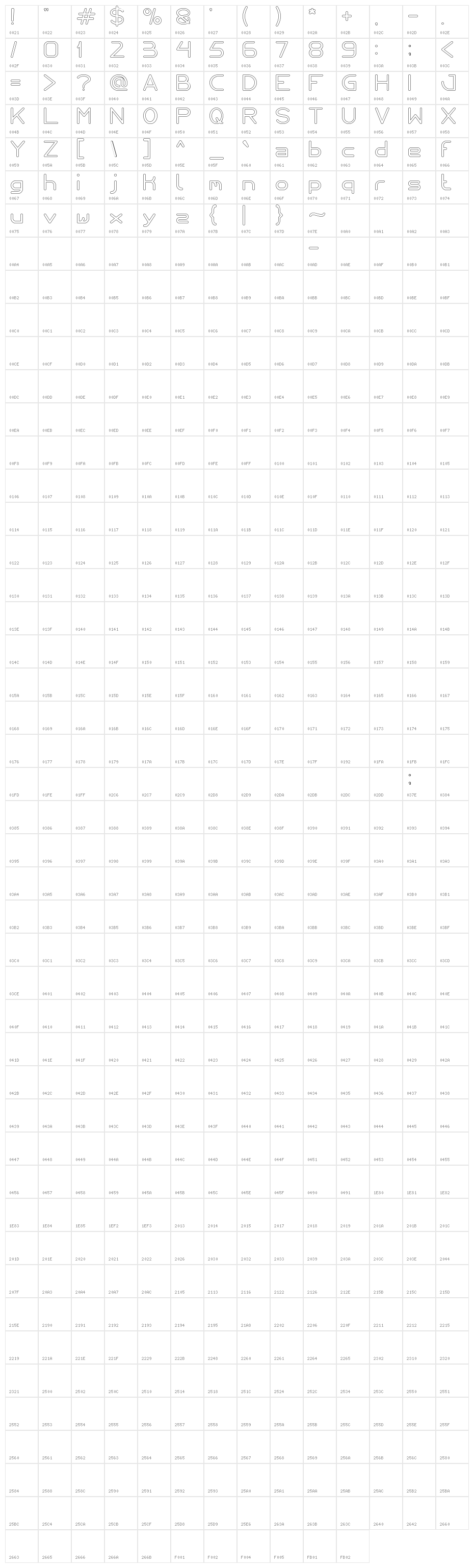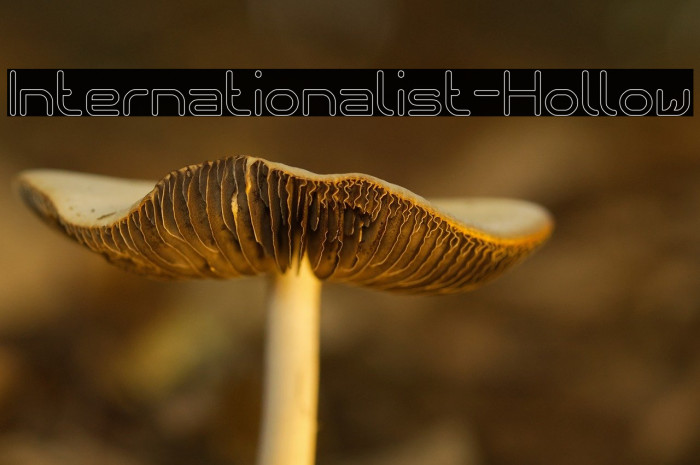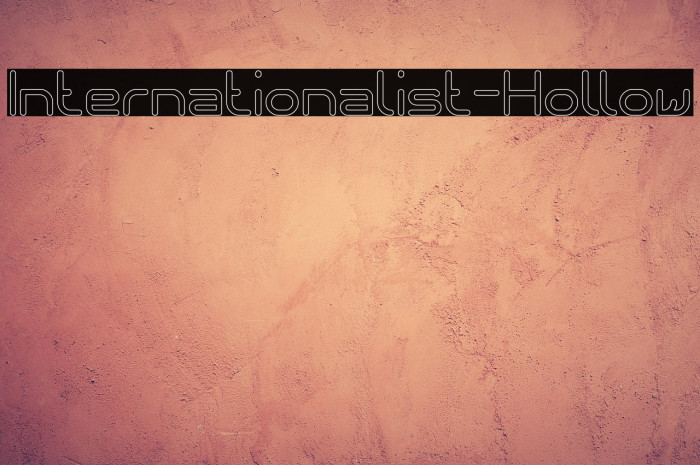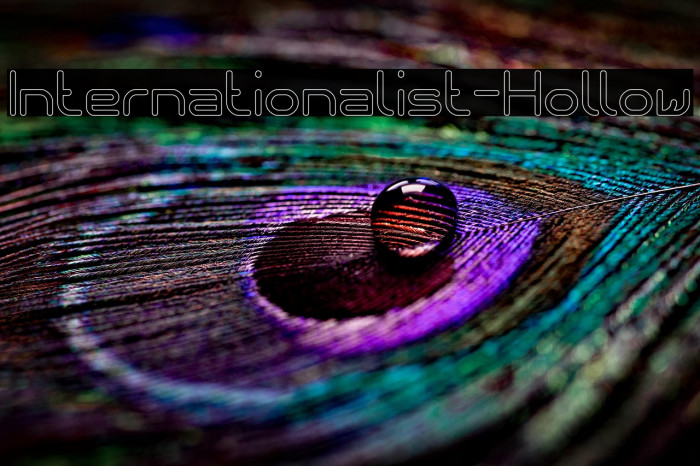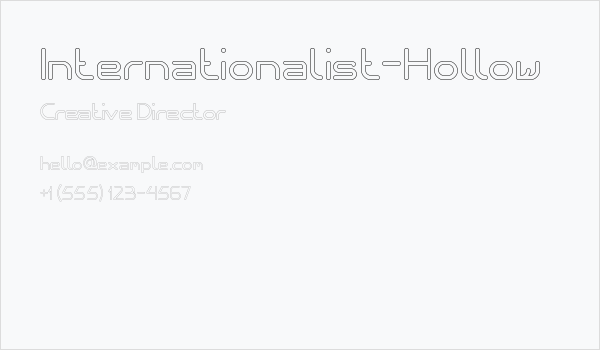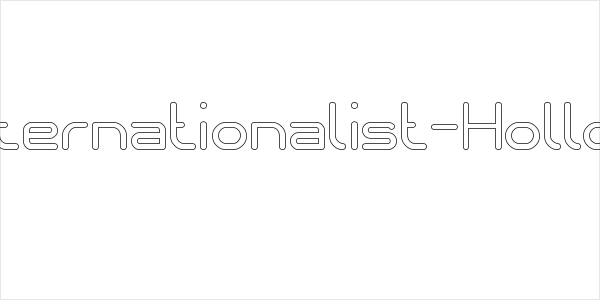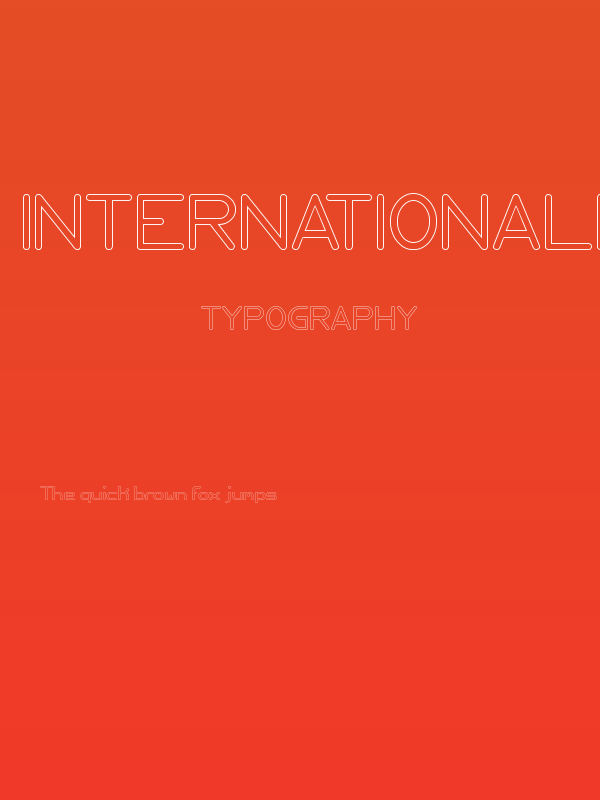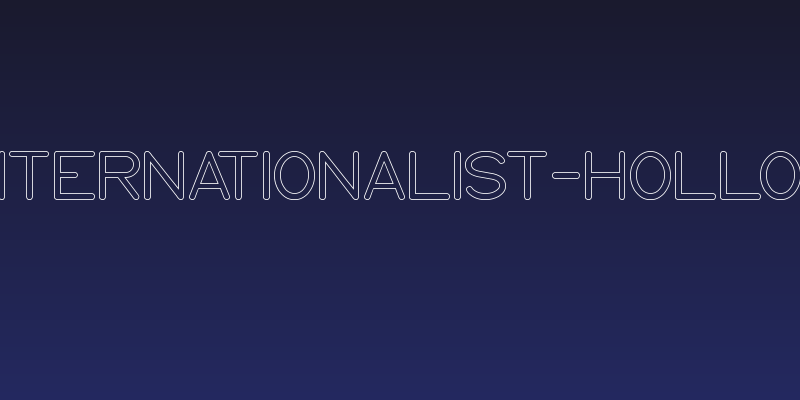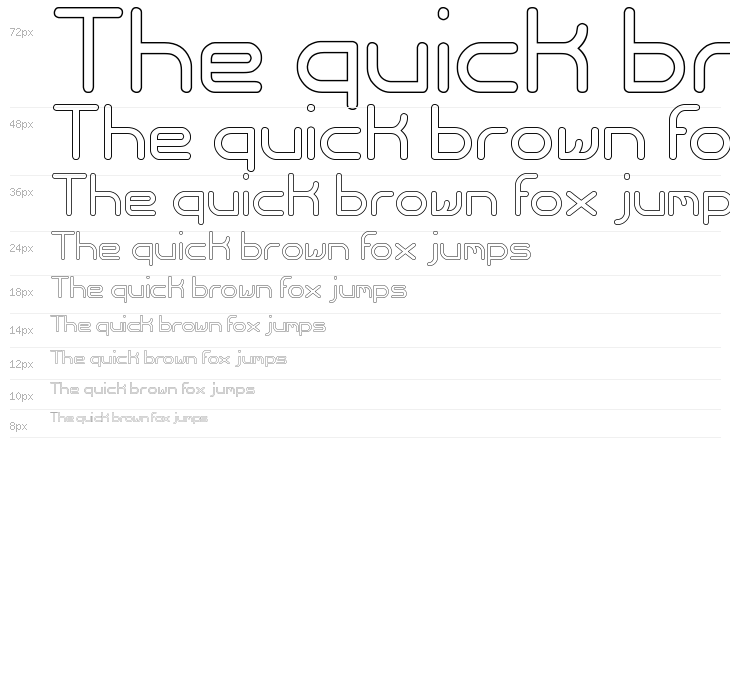
Internationalist-Hollow Font
Internationalist-Hollow Description
This font features a hollow, outlined design that gives it a modern and futuristic appearance. The characters are evenly spaced, with a consistent line thickness that creates a clean and minimalist look. The uppercase and lowercase letters maintain a uniform style, with rounded edges that soften the overall geometric structure. Numbers and special characters are designed to complement the alphabet, ensuring a cohesive visual experience. This font's unique hollow style makes it stand out, offering a distinctive aesthetic that is both contemporary and versatile.